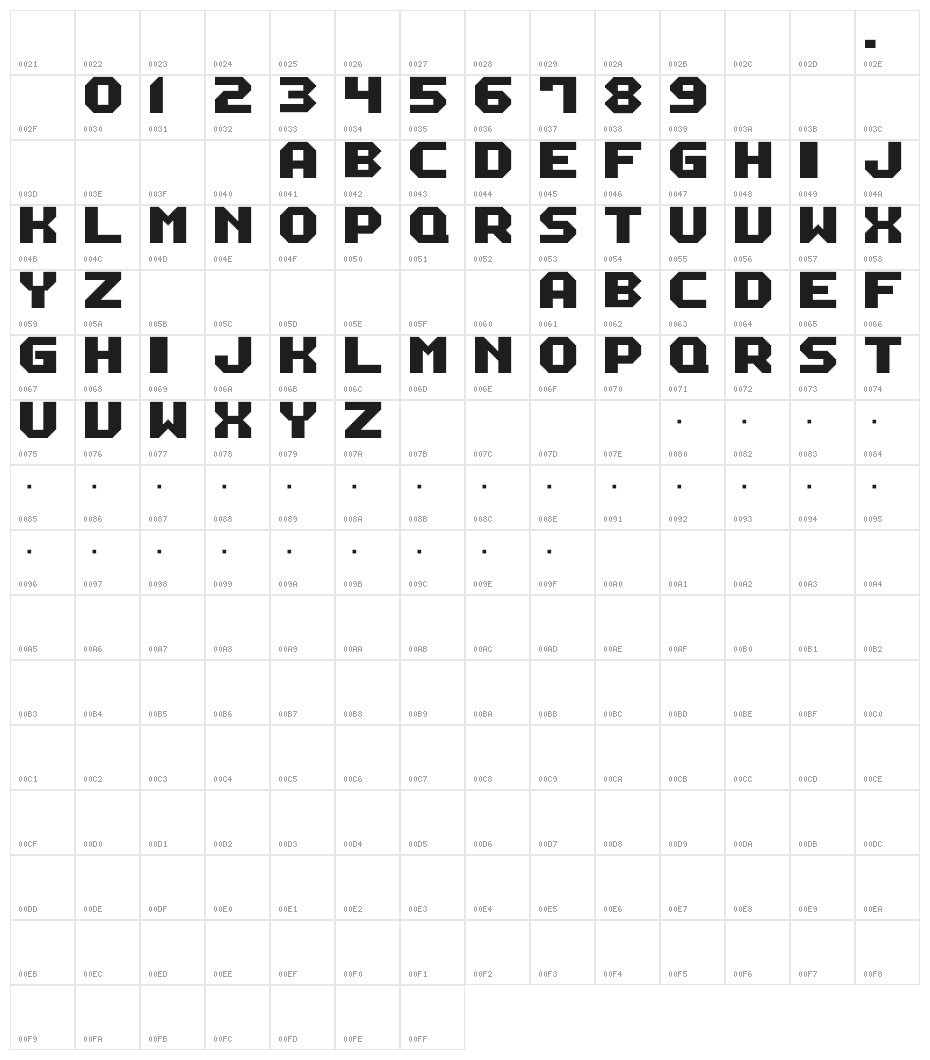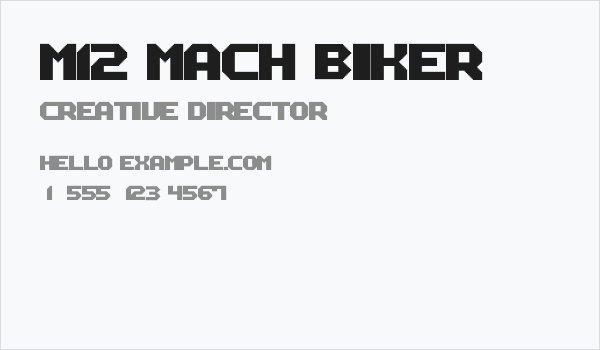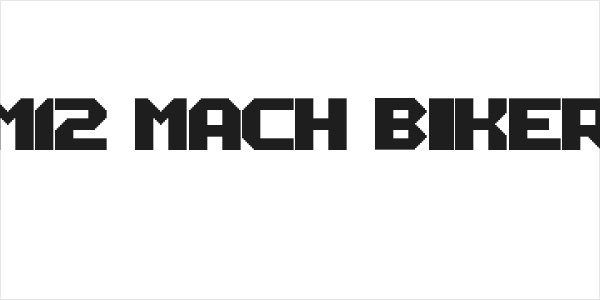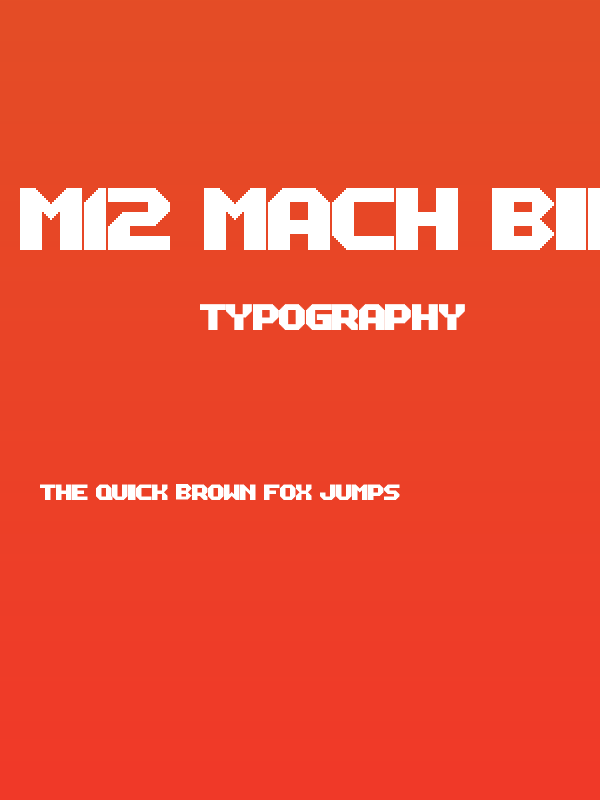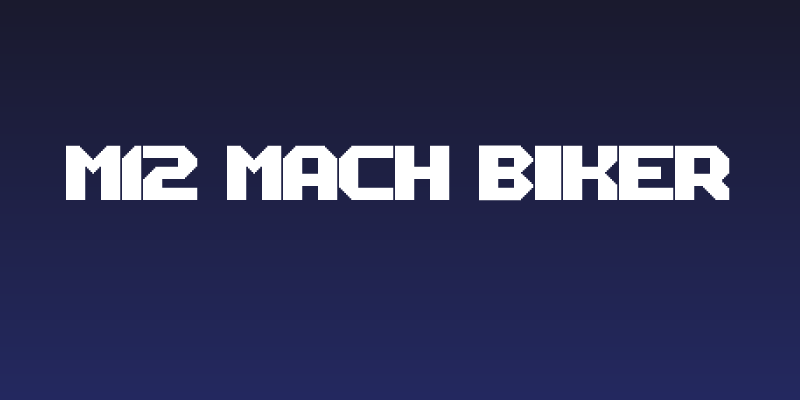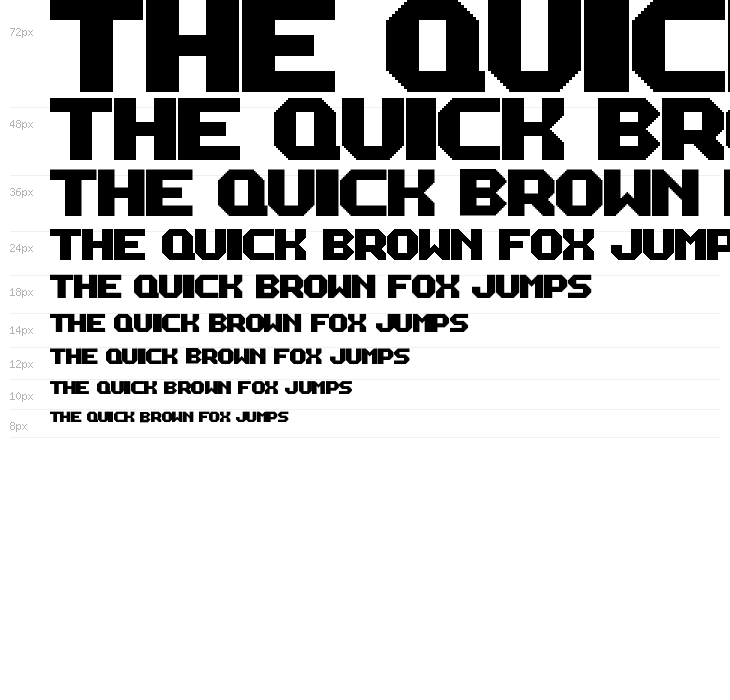
M12_MACH BIKER Font
M12_MACH BIKER Description
This font features a bold, geometric style with a strong, industrial feel. The characters are constructed with thick, angular lines, giving them a blocky and robust appearance. The uppercase and lowercase letters maintain a consistent height, enhancing the uniformity and balance of the typeface. The numerals follow the same design principles, ensuring a cohesive look across all characters. This font's design is reminiscent of digital or mechanical aesthetics, making it suitable for projects that require a modern and edgy touch. The absence of curves and the emphasis on straight lines and sharp angles contribute to its distinctive and assertive personality.
| Use Case | Logos, Headlines |
| Proposed Projects | Ideal for technology branding, video game titles, futuristic posters, and industrial-themed designs. |